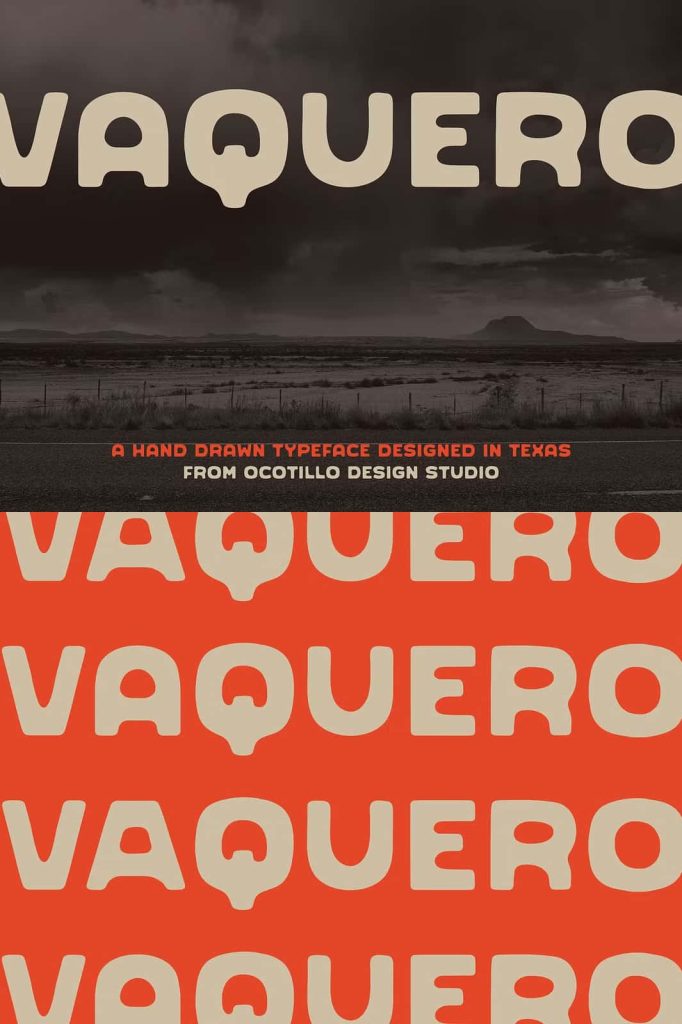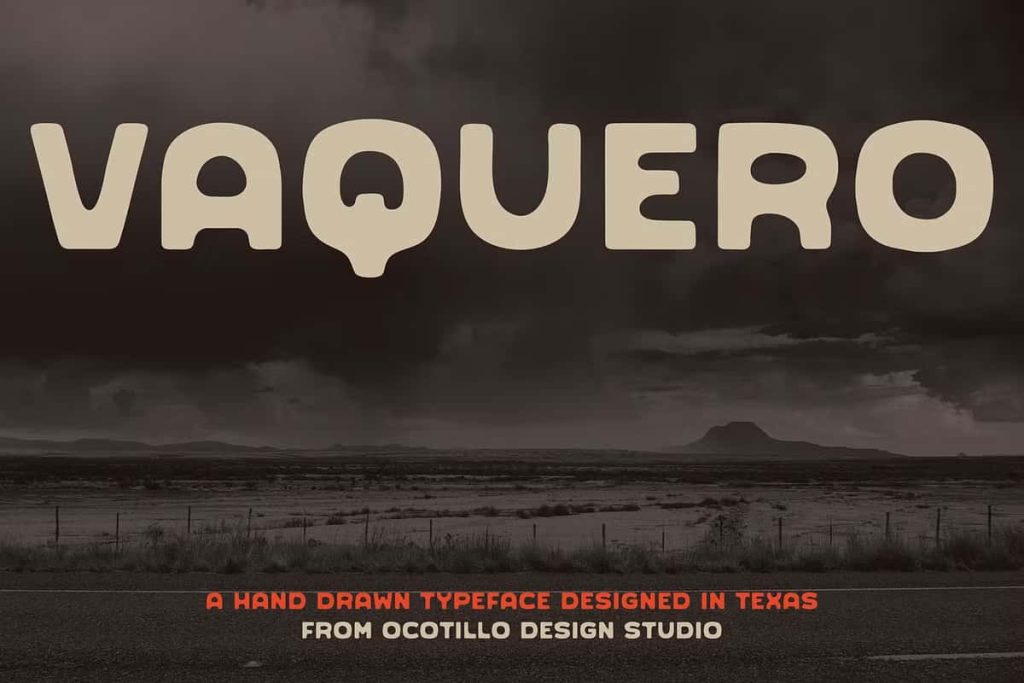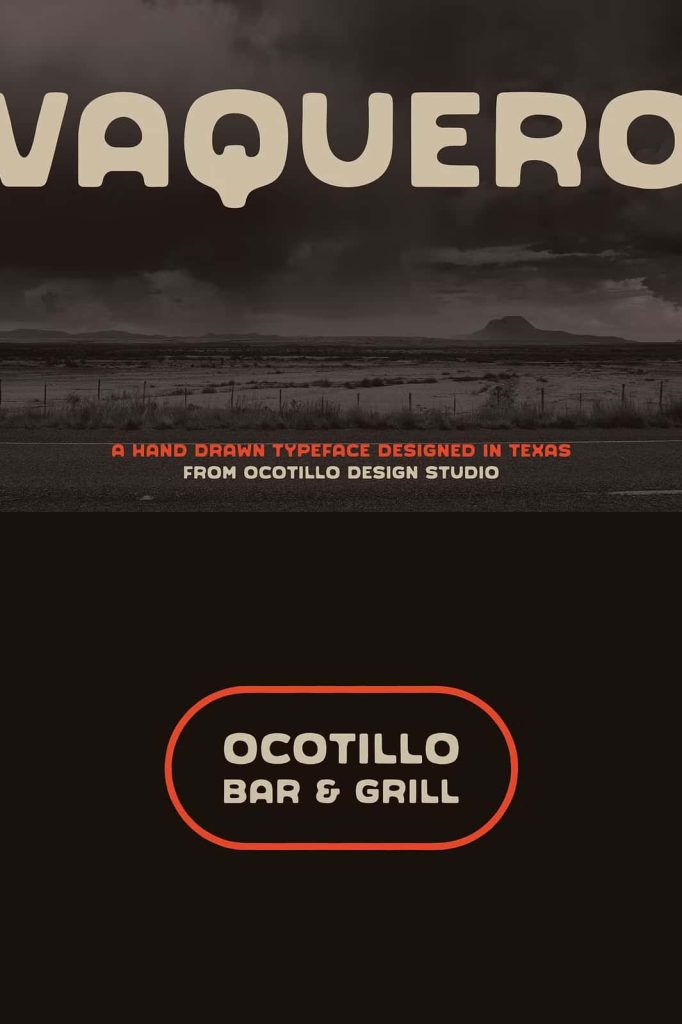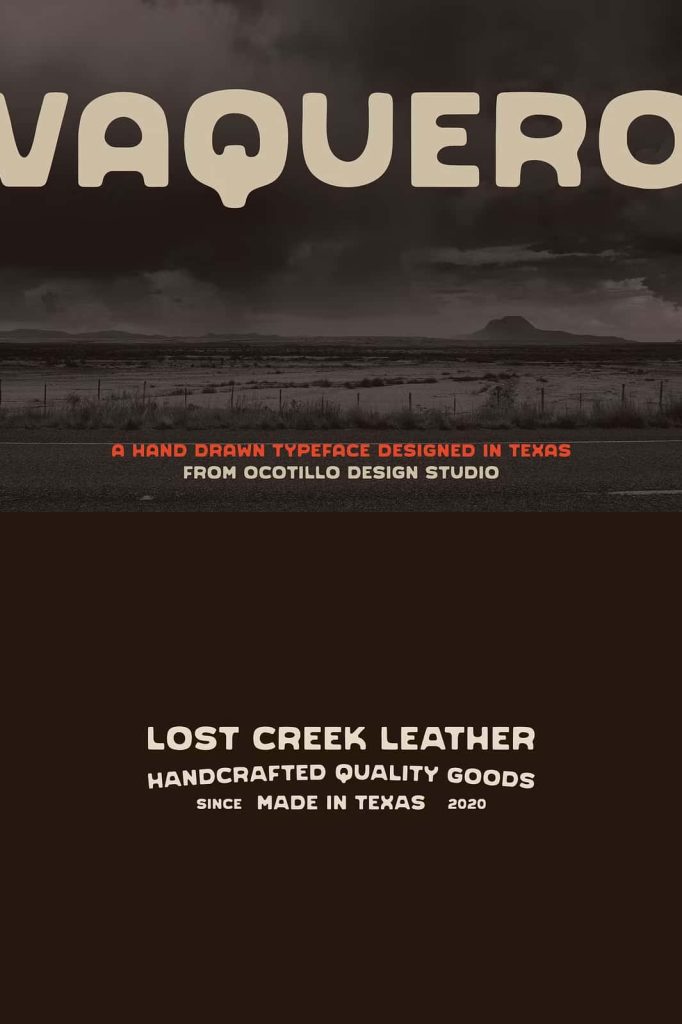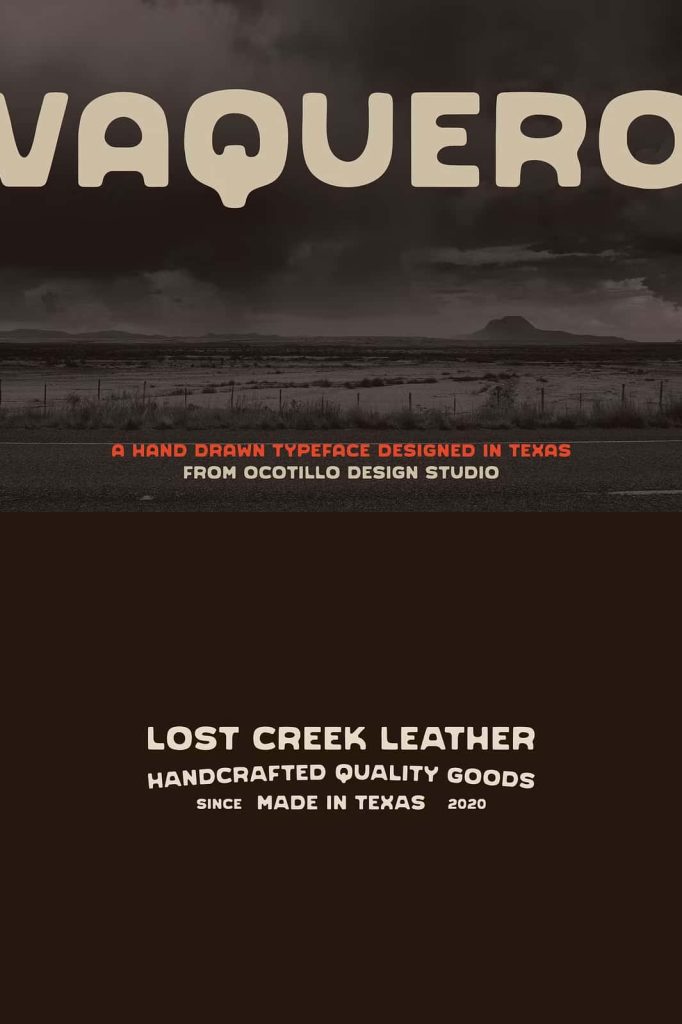
Vaquero Typeface: A Handmade Western Font with Rugged Character
Vaquero is a distinctive handmade typeface inspired by the weathered spirit of the American West. Built with expressive strokes and organic imperfections, this font captures the raw beauty of handcrafted lettering shaped by time, dust, and tradition. Every letterform reflects strength, independence, and authenticity, making Vaquero an ideal choice for designers who want typography that tells a story and commands attention.
Inspired by the Weathered West
The design of the Vaquero typeface draws strong influence from western culture, vintage signage, and rugged frontier aesthetics. Its handcrafted appearance echoes old saloon signs, cattle brands, worn wood textures, and sun-faded lettering found across desert towns. These influences give the font a bold and timeless presence that immediately communicates grit and character.
Rather than relying on clean geometric precision, Vaquero embraces natural inconsistencies. Subtle variations in stroke weight and form add depth and realism, reinforcing the handcrafted quality of the typeface. This intentional imperfection helps designs feel more organic and visually engaging while preserving strong readability.
Distinctive Alternate A Glyph
One of the standout features of the Vaquero typeface is its alternate A glyph. This unique character variation allows designers to customize their typography and add visual interest without disrupting consistency. The alternate A enhances creative flexibility, making it easier to tailor designs to specific moods, themes, or branding requirements.
By offering stylistic alternatives, Vaquero supports expressive lettering and encourages experimentation. Designers can use the alternate glyph selectively to highlight words, create dynamic logos, or establish a more authentic handcrafted feel across compositions.
Perfect for Branding, Posters, and Vintage Design
Vaquero excels in branding projects that demand personality and bold expression. Logos, labels, packaging, and brand identities benefit from its western-inspired aesthetic and strong visual impact. The font helps brands communicate confidence, tradition, and authenticity, making it particularly effective for lifestyle brands, apparel, food and beverage packaging, and creative businesses.
In poster design and editorial layouts, Vaquero delivers powerful headlines that stand out. Its rugged structure and handmade texture draw the eye and create a strong focal point. Event posters, album covers, signage, and promotional materials gain a sense of heritage and storytelling when paired with this typeface.
Designed for Creative Versatility
While Vaquero carries a strong western identity, it remains surprisingly versatile. Designers can pair it with clean sans-serif fonts or neutral serif typefaces to create balanced compositions. This flexibility allows Vaquero to function effectively in both bold display roles and supportive typographic systems.
The font performs well across print and digital formats, maintaining clarity at larger display sizes. Its handcrafted details shine in headlines, logos, and short text applications where character and presence matter most. Vaquero adapts seamlessly to modern workflows while preserving its rustic, handcrafted soul.
A Typeface That Tells a Story
Vaquero is more than a font; it is a visual expression of western heritage and handcrafted tradition. Its weathered style and expressive forms create emotional resonance, helping designs feel grounded, authentic, and memorable. This typeface empowers designers to communicate stories of resilience, independence, and timeless craftsmanship.
For creative professionals seeking a handmade western typeface with strong personality and flexible design options, Vaquero offers a compelling solution. Its distinctive alternate glyphs, rugged textures, and expressive character make it a powerful tool for impactful and story-driven design.